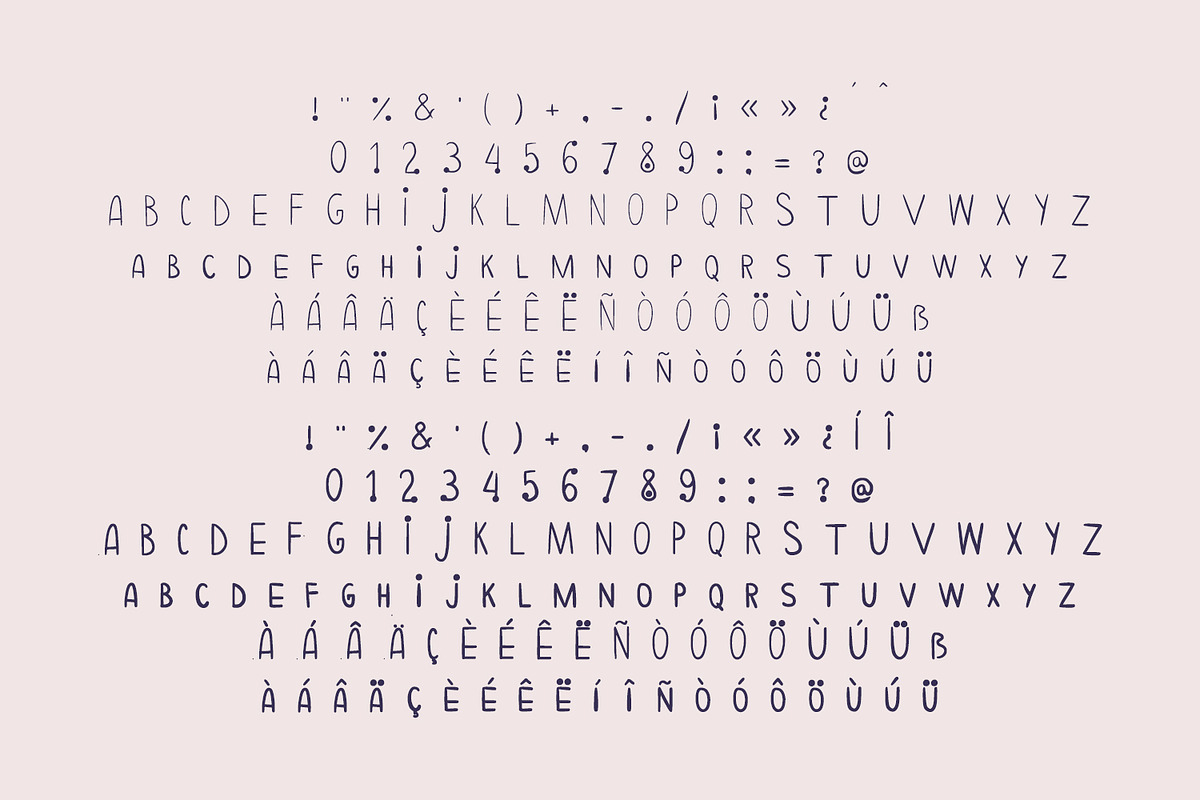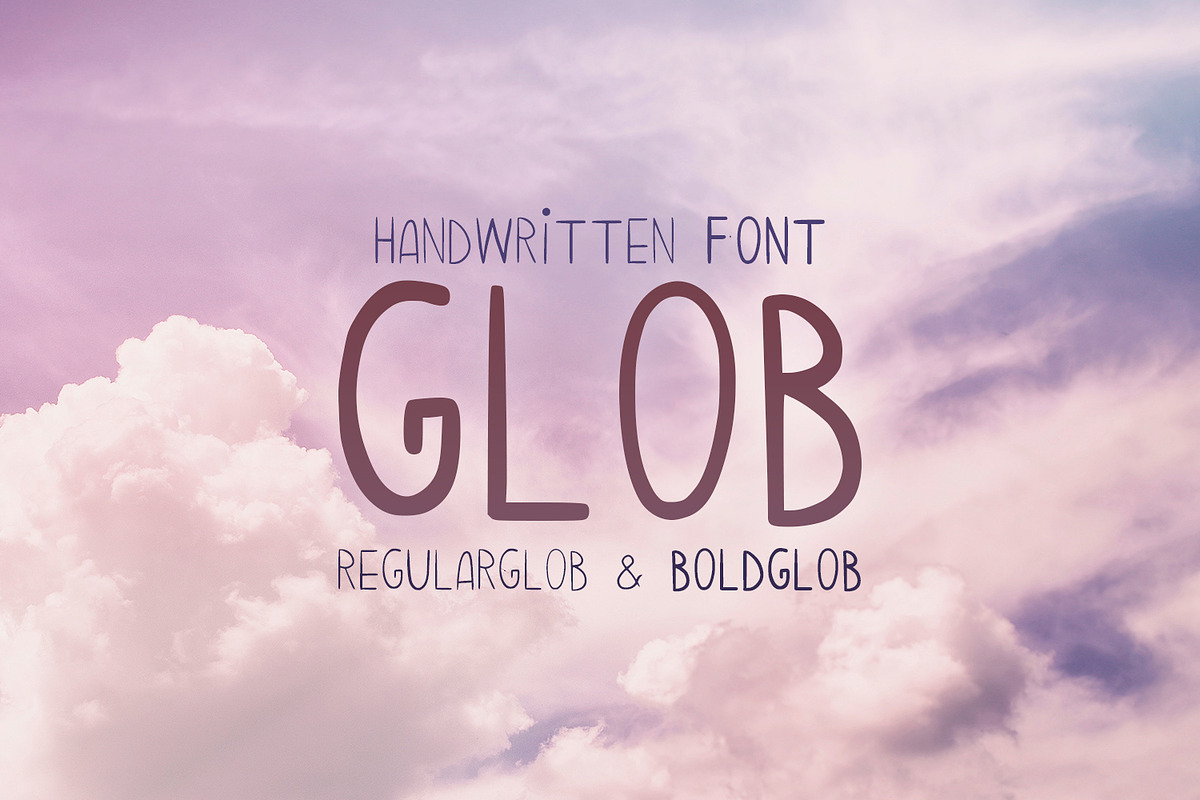
Glob Font
This is a handwritten font made with love.
Why Glob Font is worth a look
Glob Font by Carolina Valtuille fits naturally into Branding, posters, packaging, typography.